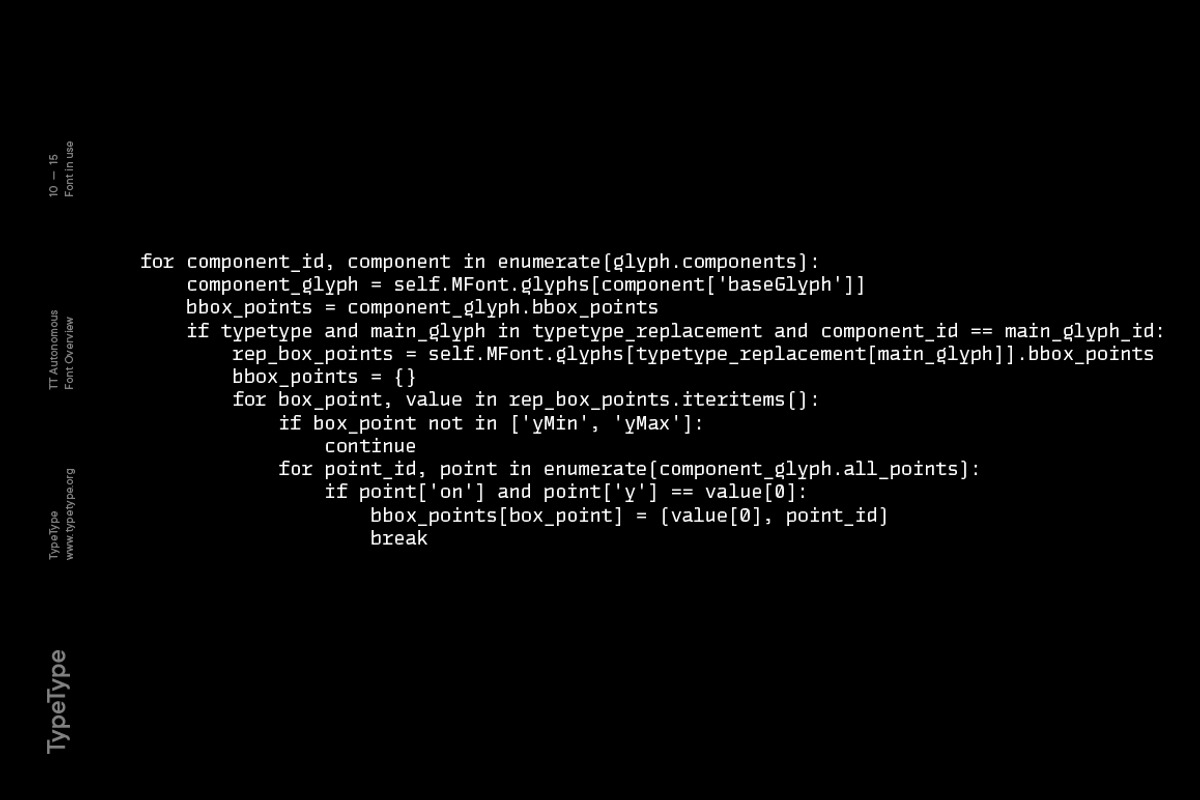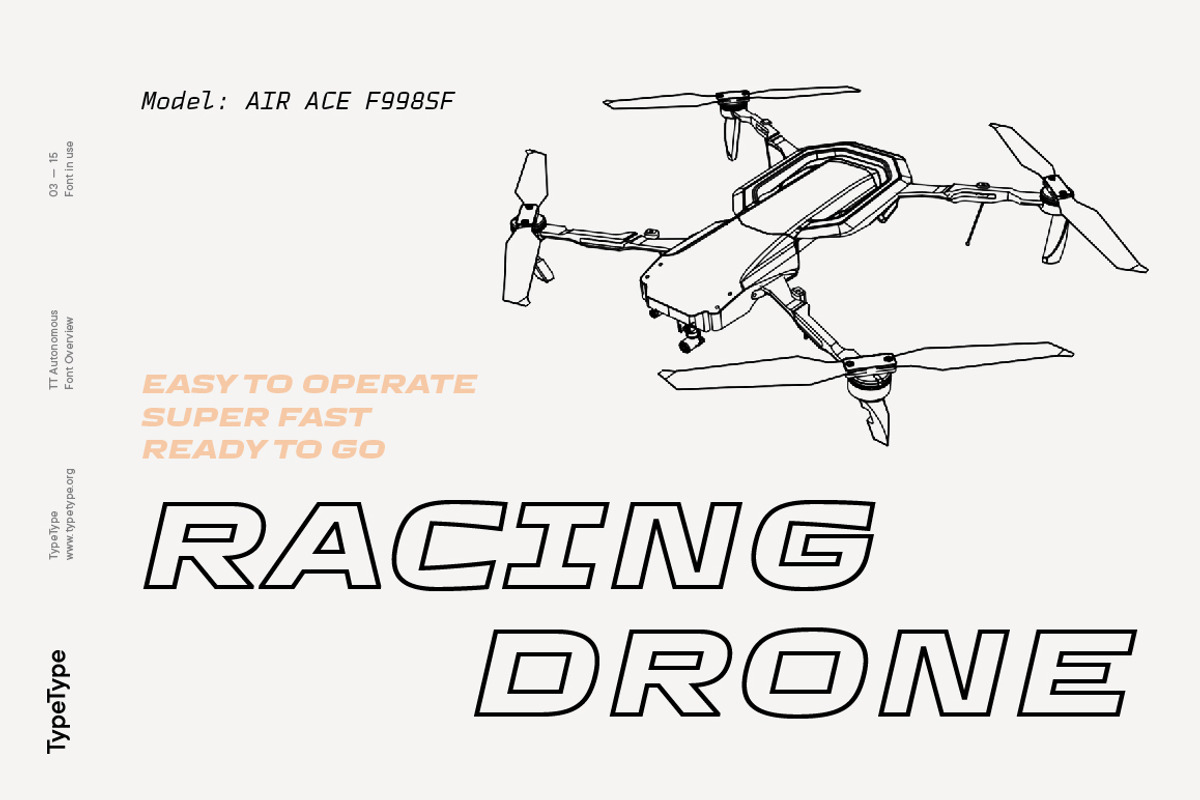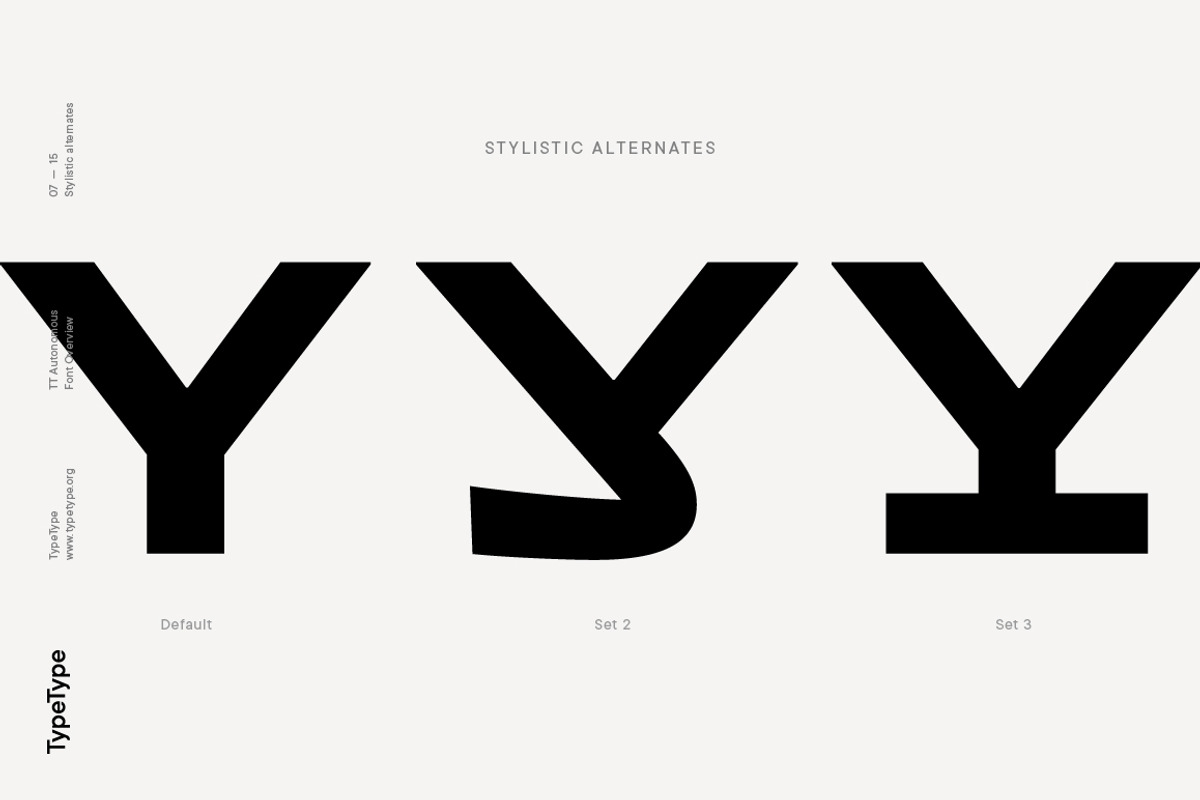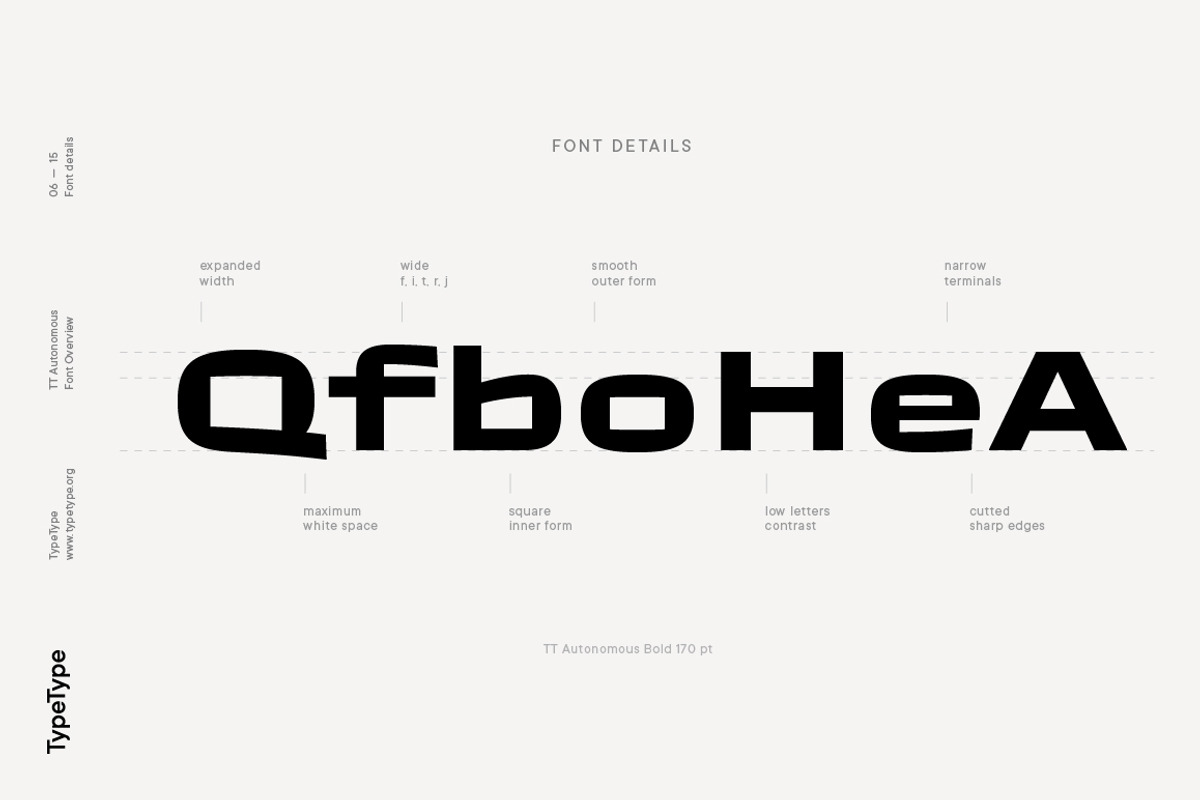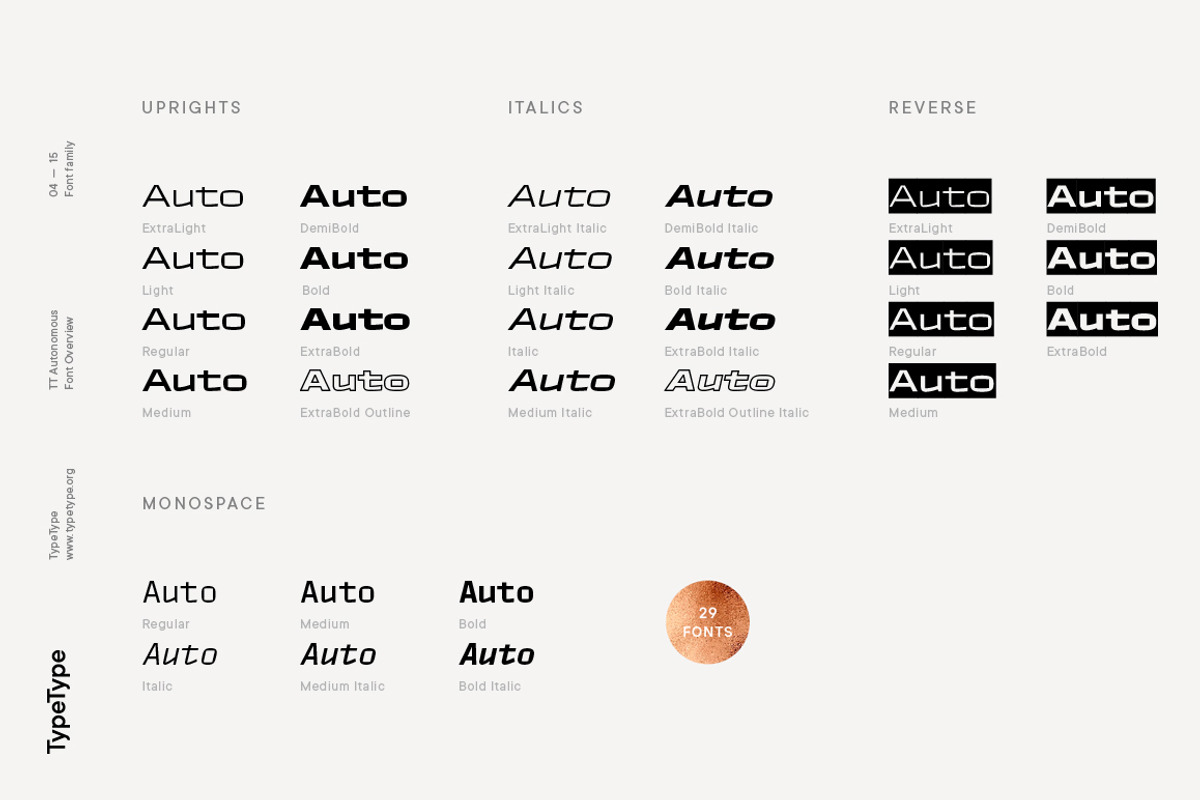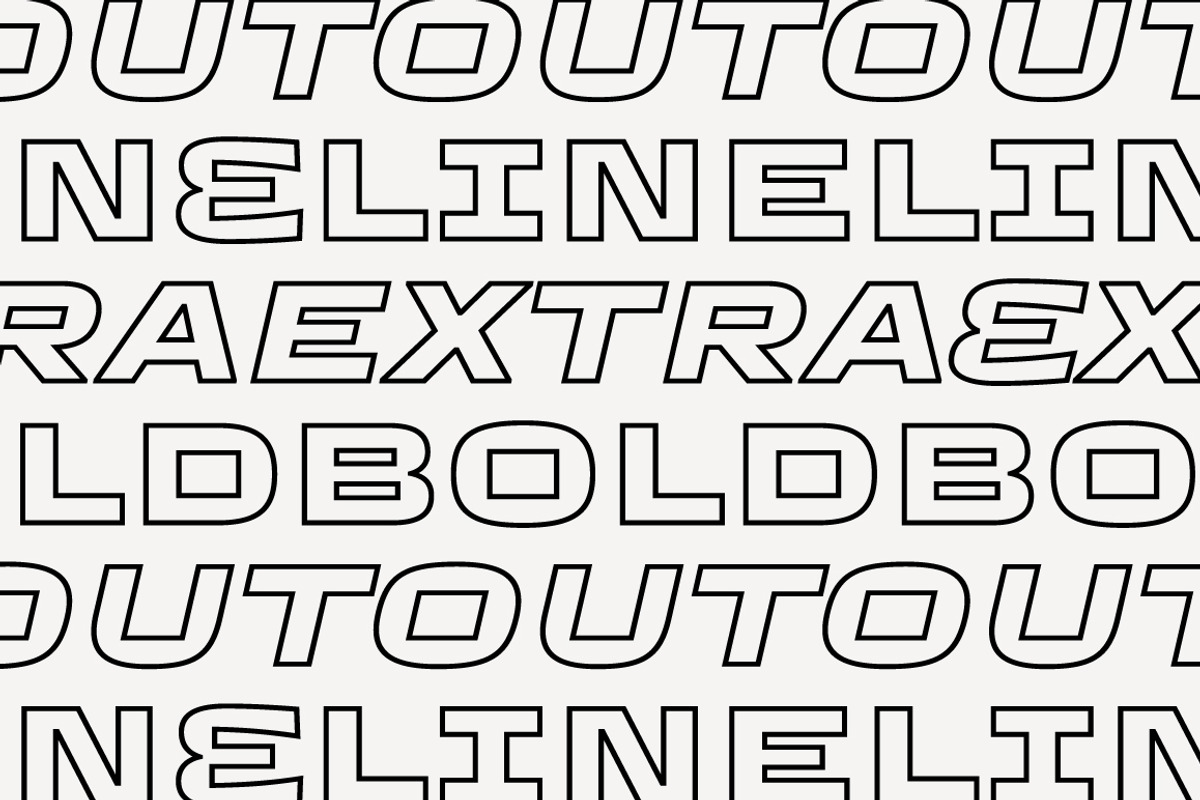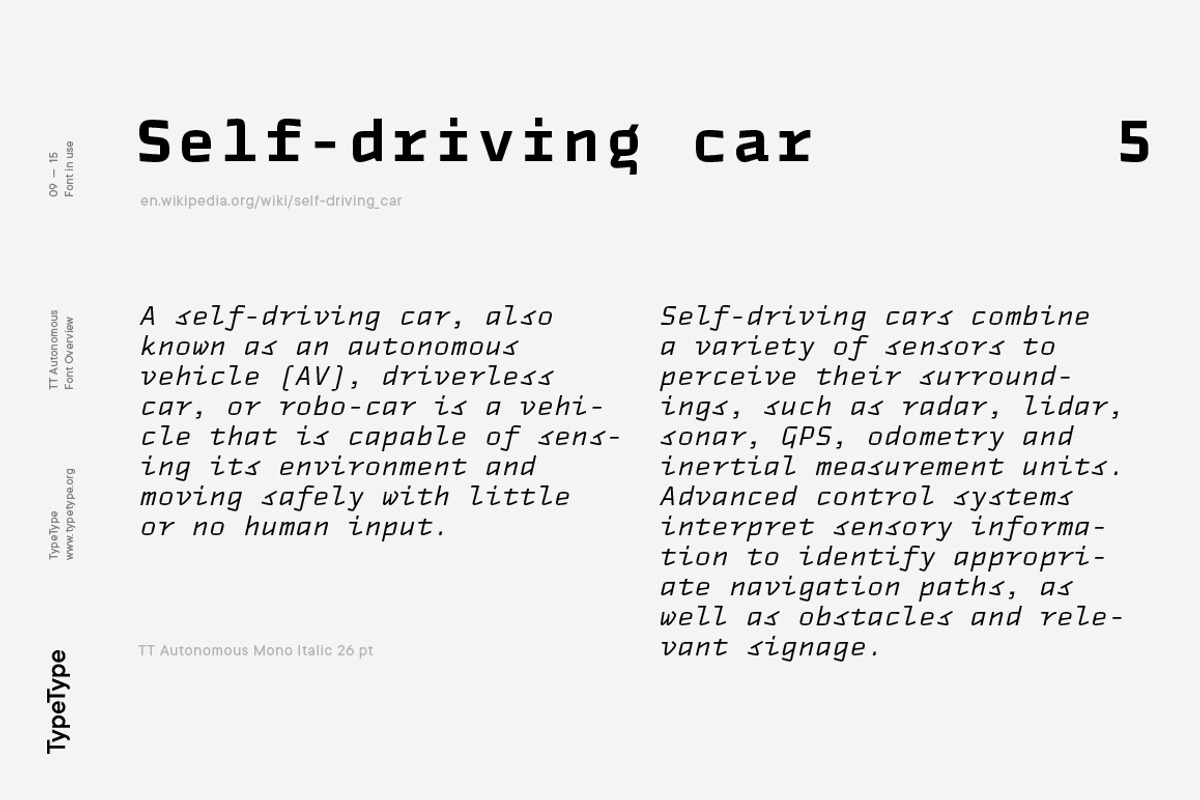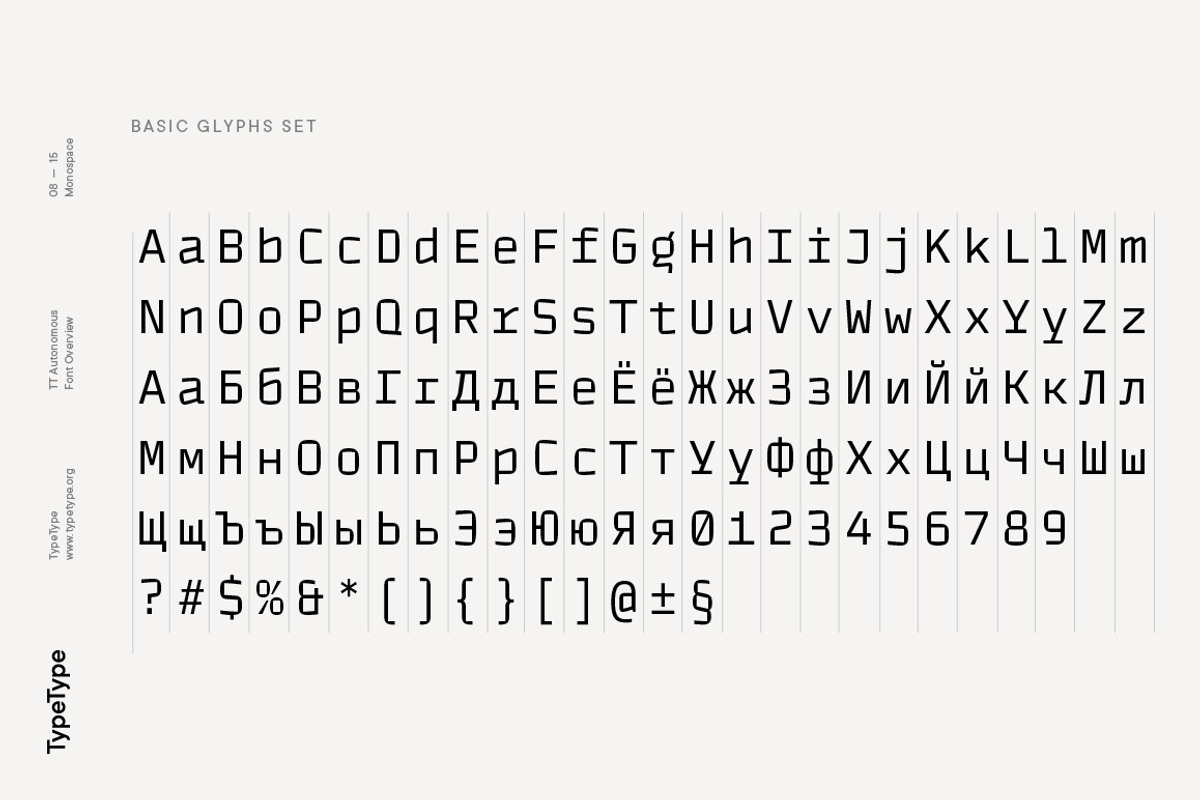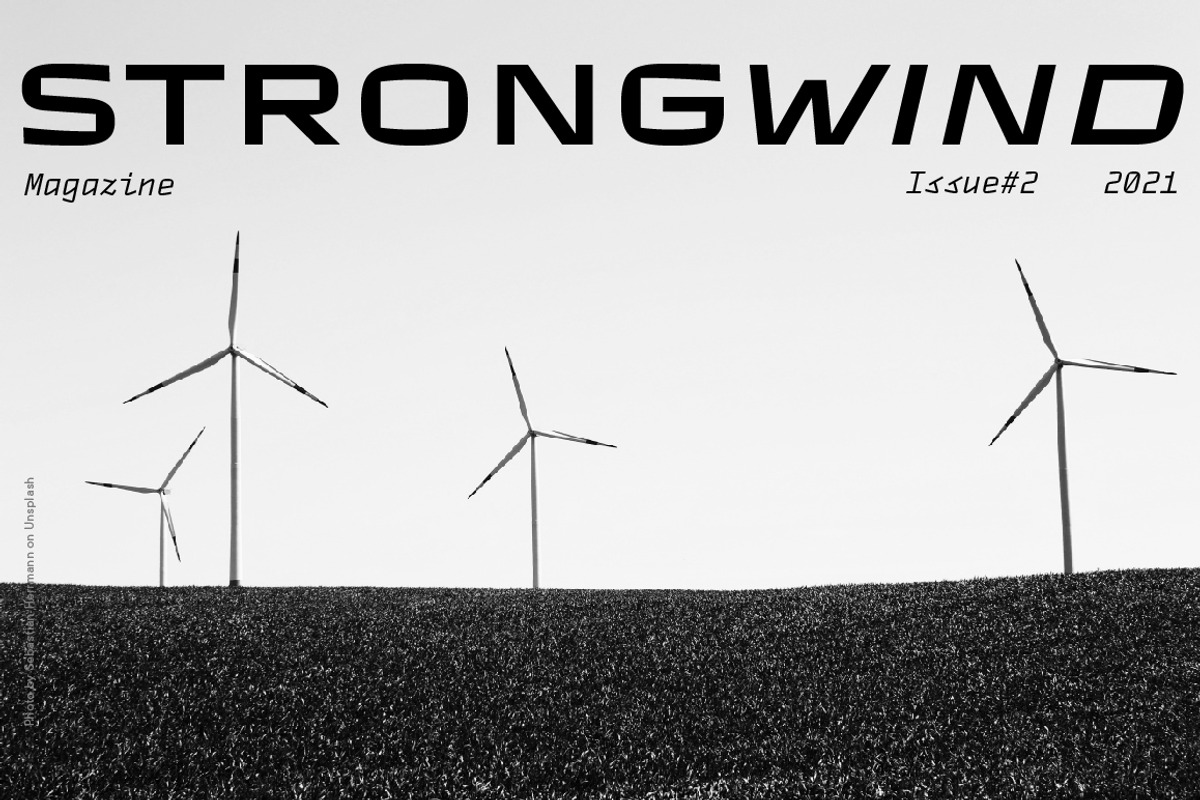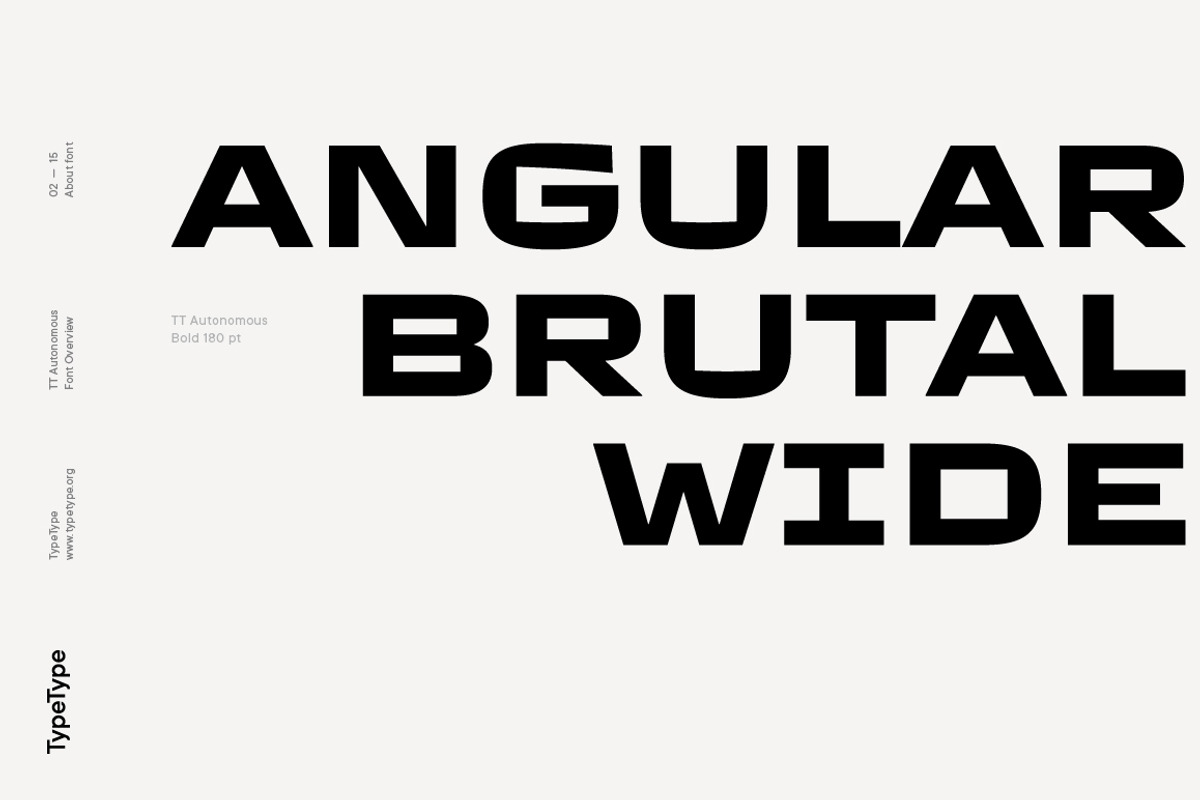
TT Autonomous
TT Autonomous in numbers:
- 29 styles: 14 regular styles, 6 monospaced, 7 reversed and 2 outline styles.
- 790+ glyphs in basic subfamily
- Supports 180+ languages (incl. Cyrillic)*
- 28 OpenType features, including Ligatures, Alternate characters, Slashed zeroes, and 12 Stylistic Sets.
The idea was born in Amsterdam when one of our colleagues took the official electric taxi at the Schiphol airport. At the moment we were thinking about creating a new wide sans-serif, and an interesting question emerged during the trip: what font would be associated with autonomous electric transport. Then we thought it would also be nice to expand this theme visually.
This is how the font family TT Autonomous came about. It is a modern brutal technological sans-serif. The basic visual characteristic of the typeface is the noticeable squareness of the characters and angular internal space. In addition, the typeface proportions tend to appear monospaced, but they are not really monospaced. The width of the characters is inspired by automobile logotype proportions, which are mostly rather wide.
We could not disregard the fact that code lines in software for autonomous cars are traditionally typed using monospaced fonts and added a special monospaced subfamily to the TT Autonomous typeface. Thanks to the squareness of the characters inherited from the main family and the real monospace properties, the character forms in the subfamily turned out very specific and interesting. This is especially true for oblique monospaced fonts, which are true italics.
In addition, we created a couple of outline styles which are great for use in titles and large inscriptions and perfectly match the basic family and the monospaced family. As opposed to outlines that can be created in graphic editors, in TT Autonomous Outline we worked through the narrow and questionable spots, thanks to which the font looks professionally complete and harmonious.
TT Autonomous is a complex font family that consists of 29 fonts intended to solve a broad range of design tasks. Overall, the font family features 14 regular styles, 6 monospaced styles, 7 reversed styles and 2 outline styles. The number of glyphs varies from 630+ in the monospaced font to 790+ in the basic styles. The basic subfamily has alternates, ligatures, old-style figures, slashed zeroes, and many other useful features.